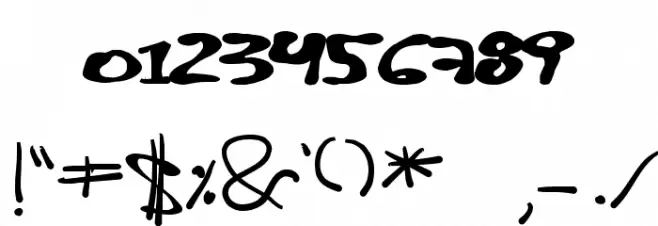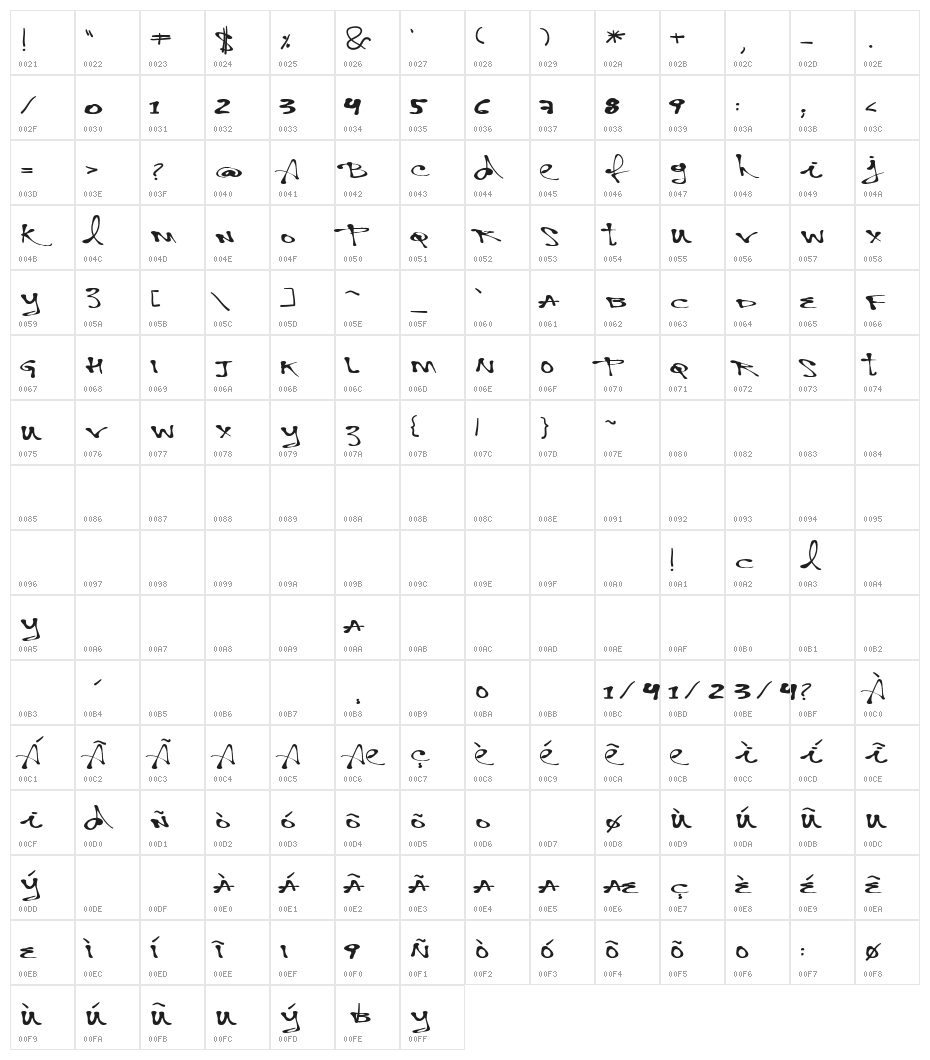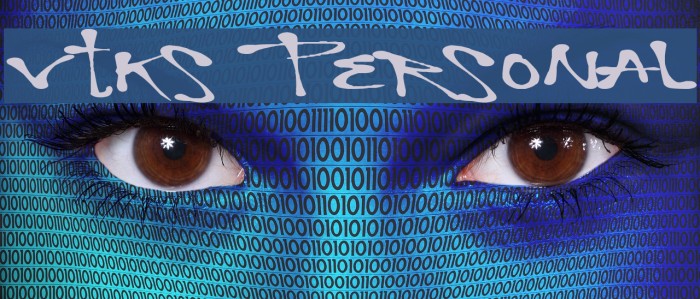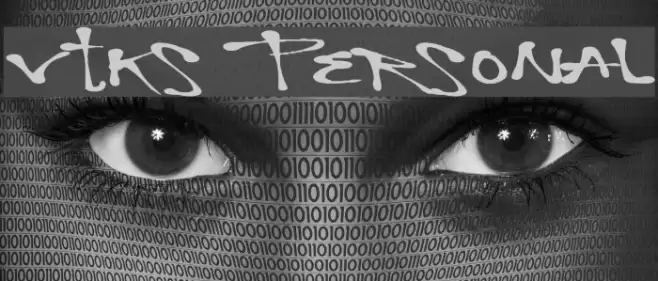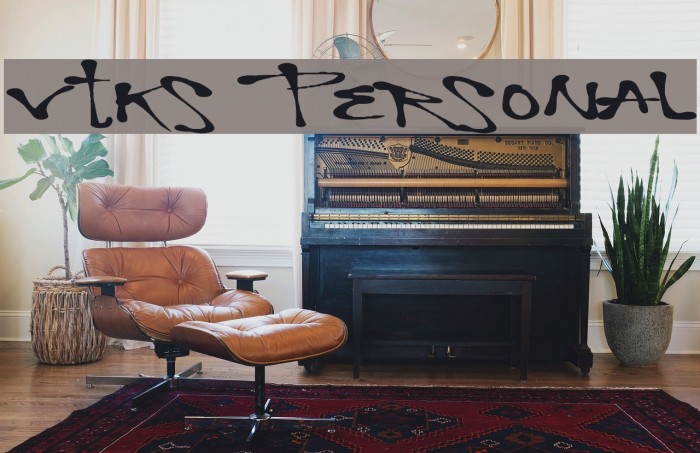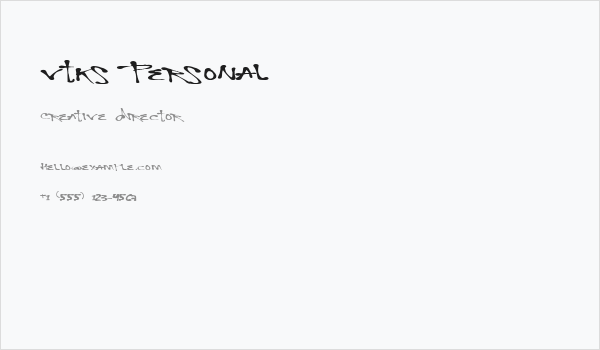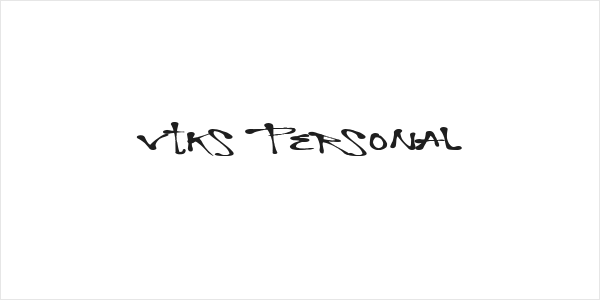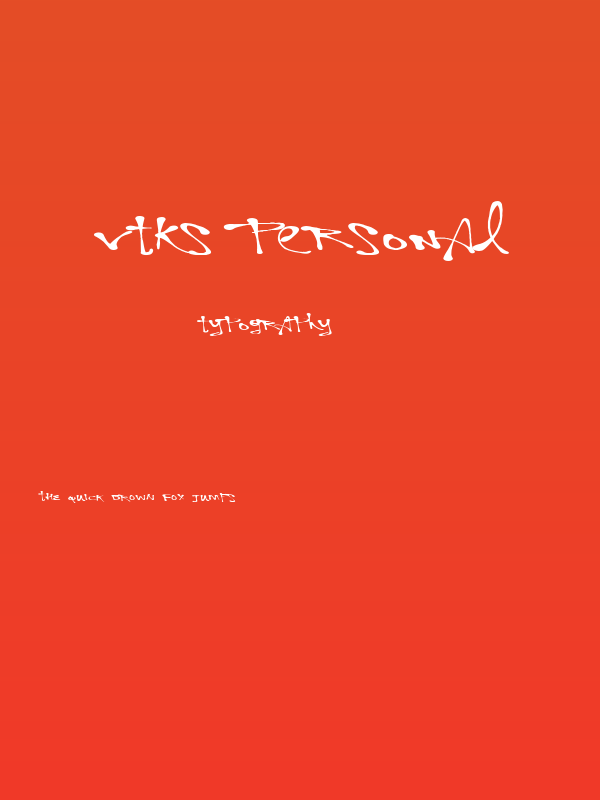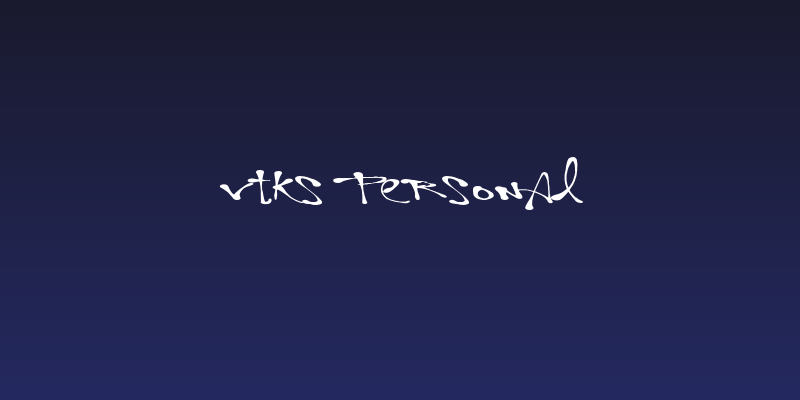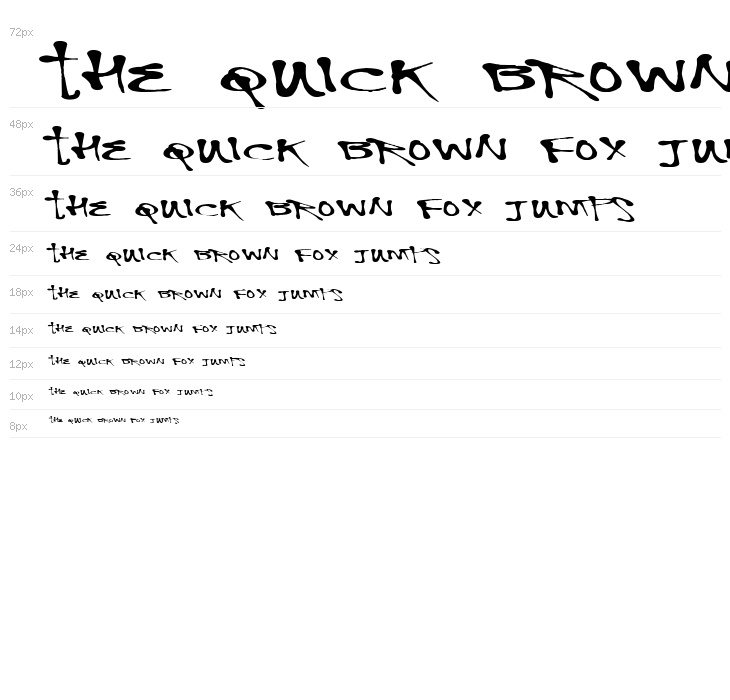
Vtks Personal Font
Vtks Personal Description
This font features a dynamic and expressive style, characterized by its handwritten appearance. The letters exhibit a playful and artistic flair, with varying stroke widths and a slightly irregular baseline that adds to its charm. The uppercase and lowercase letters are distinct, with the uppercase being more bold and pronounced. The numbers and special characters maintain the same energetic style, making the font versatile for creative projects. The overall look is both modern and artistic, suitable for designs that require a personal touch.
| Overall Style | Artistic, Modern |
| Use Case | Logos, Posters, Creative projects |
| Proposed Projects | Ideal for greeting cards, artistic posters, branding projects, and any design that benefits from a personal, creative touch. |